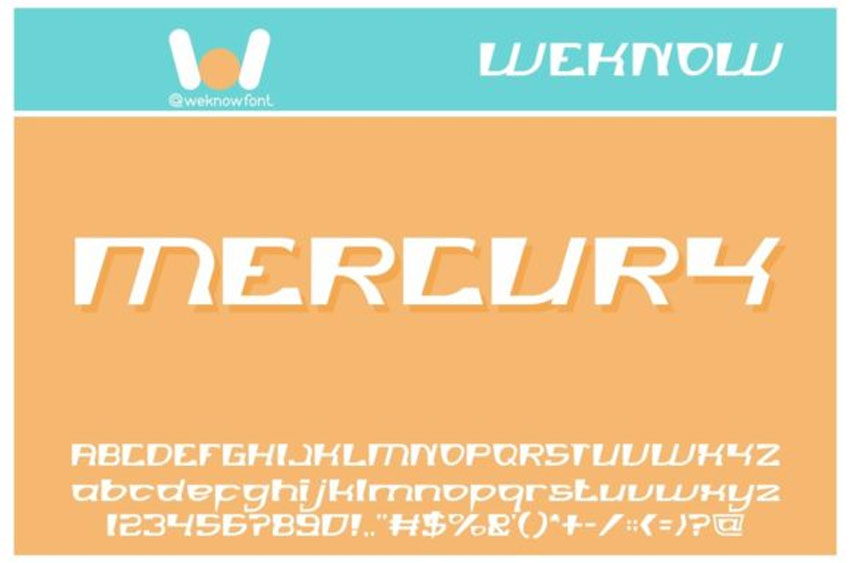
Mercury Font is a fancy display font suitable for logo, logotype, headline font, corporate identity, brand identity, apparel industry, poster, music, movie, game, magazine, book, comic, cartoon, YouTube, Instagram, website, or any of your creative design projects.